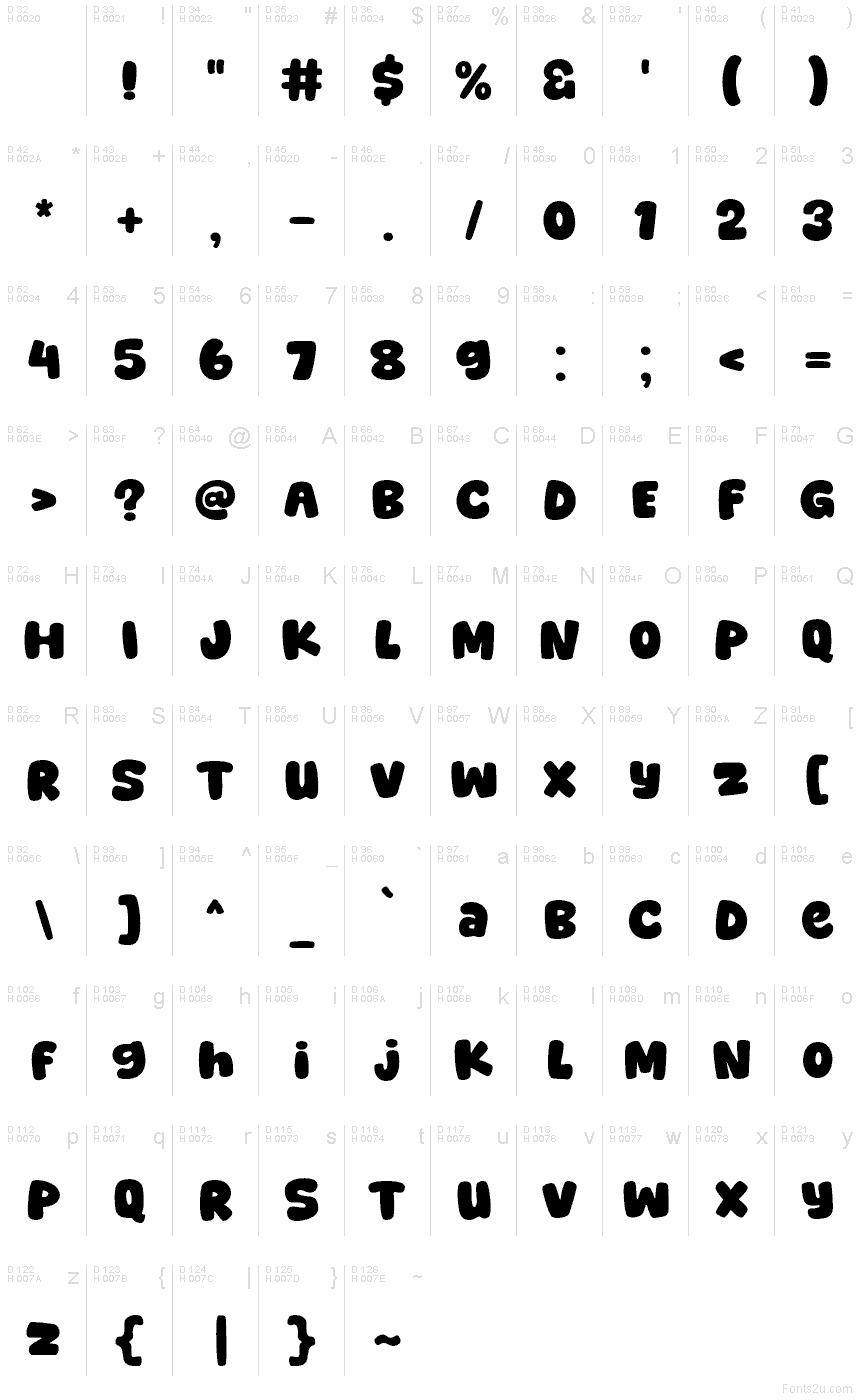
Super Trend
Super Trend font by fsuarez913 is a free bold cartoon display font that solves a classic headache: how to get big, bubbly character without sacrificing legibility. Its pillowy shapes, generous counters, and steady rhythm read cleanly at a glance, while the inky, soft-edged silhouette brings a friendly bounce. Letters feel chubby yet controlled—enough weight for impact, enough spacing to breathe.
Using Super Trend, headlines pop on kids’ packaging, toy branding, sticker sheets, party invites, classroom posters, comic titles, and YouTube thumbnails. This free font shines when set large, then supported by a light, no-nonsense sans for captions. Keep tracking tight for punchy logos; loosen slightly for playful, airy banners.